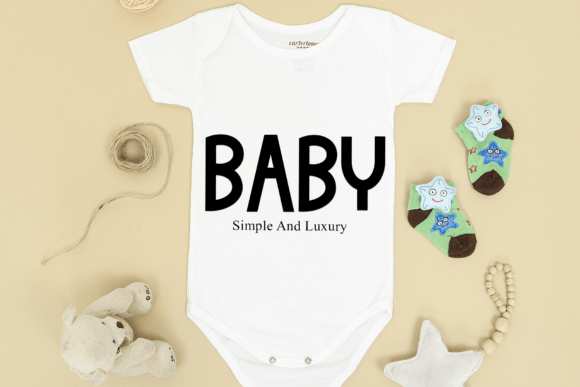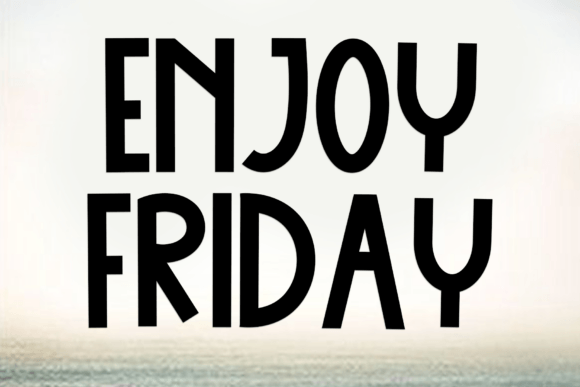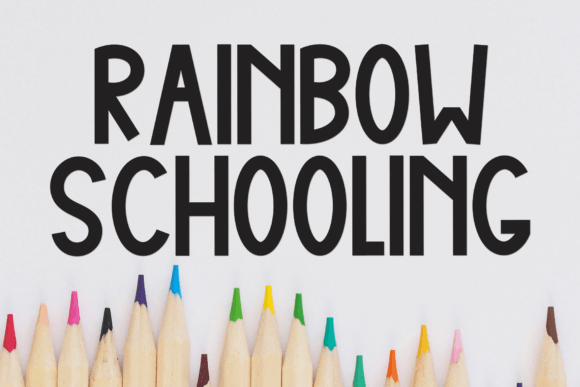
Introduction to Never School Font
Never School is a beautiful and eye-catching font.
Its distinctive strokes give it a special character, making it meaningful and versatile for future use With various characters, it’s perfect for design projects, crafts, and other creative works.
Why Choose Never School Font?
Never School Font offers exceptional quality and versatility, making it a valuable addition to your design toolkit. Whether you’re creating for personal projects or commercial use, Never School Font delivers professional results.